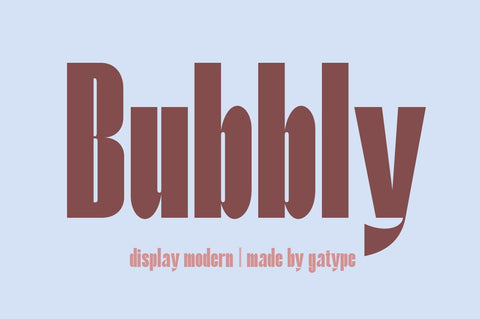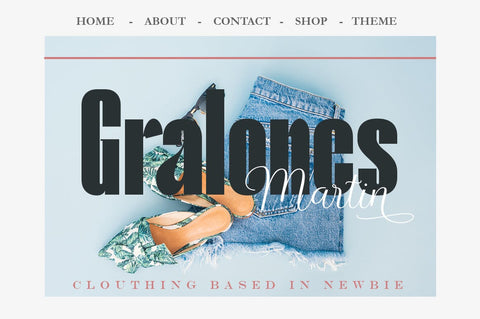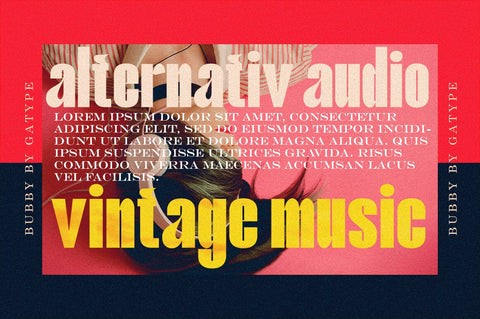
Bubbly
Stylish Bubbly Display with bold looking letters and Harmonious Impact to form a unique & elegant typography design.
. uppercase and lowercase
. multilingual symbol
. number
. punctuation